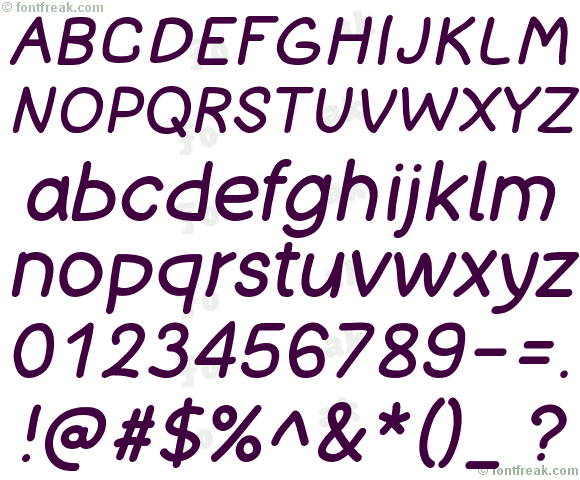
Bad Comic
Bad Comic Italic
About Bad Comic
Bad Comic by GGBot is a striking display font that embodies a playful, irreverent spirit, making it perfect for various creative projects. With its distinct comic style, this font features thick, uneven strokes and a rounded appearance that captures the essence of hand-drawn lettering. The overall aesthetic is characterized by a lack of uniformity, giving it an authentic, casual vibe that resonates well with audiences looking for a lighthearted touch. The italic version adds an extra layer of dynamism, enhancing its expressiveness without sacrificing readability.
This font is particularly well-suited for use in comic strips, children's book covers, and graphic novels, where a fun and whimsical tone is essential. Additionally, it shines in promotional materials such as event flyers, where a less formal approach can attract attention. Restaurant menus, especially for cafes or eateries with a quirky theme, can benefit from the engaging and approachable nature of Bad Comic. Content creators, such as bloggers and social media influencers, will also find this font invaluable for adding a unique flair to their graphics and posts.